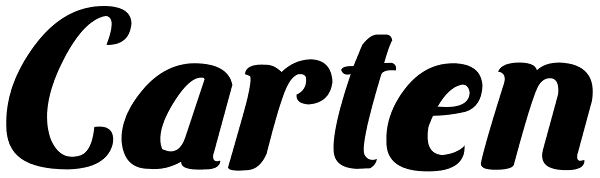
Carten
Carten is a groovy script typeface inspired by the 60's, 70's advertising and titling styles. The initial-like alternates of capitals and the ending swash alternates of small letters provide a wide variety of your design.
Carten Font